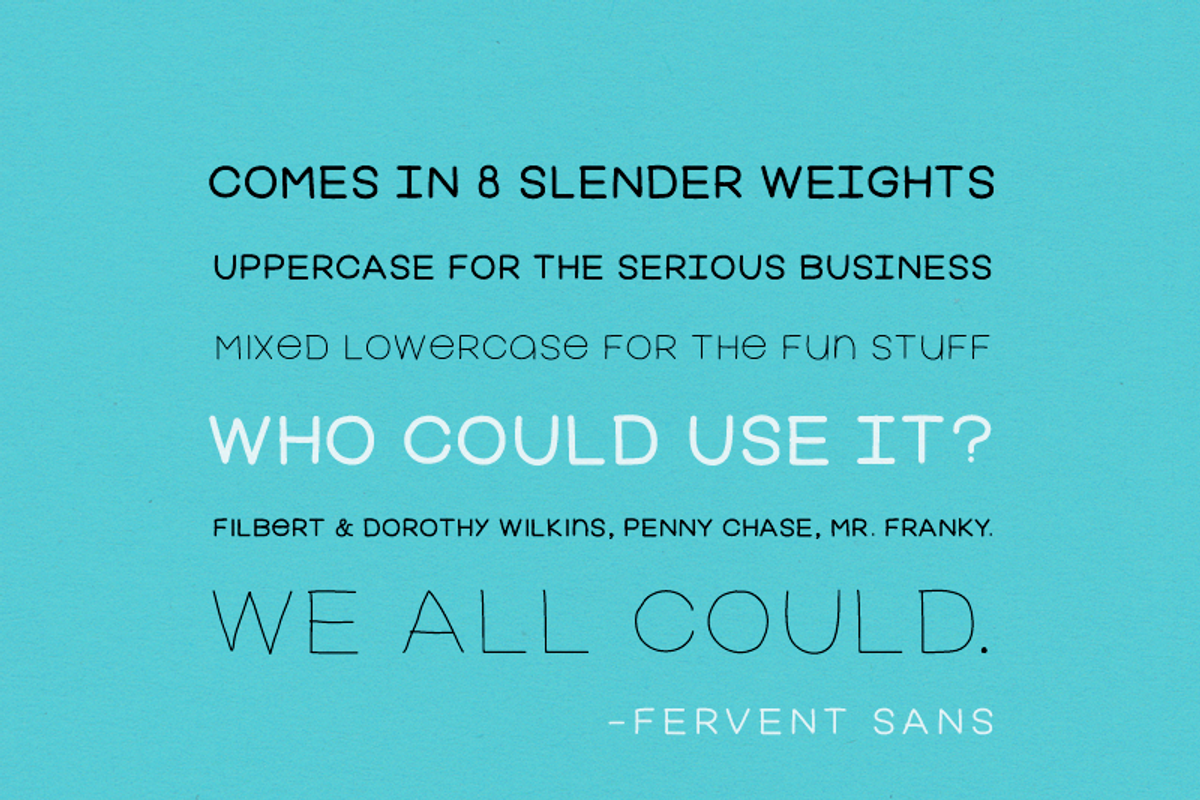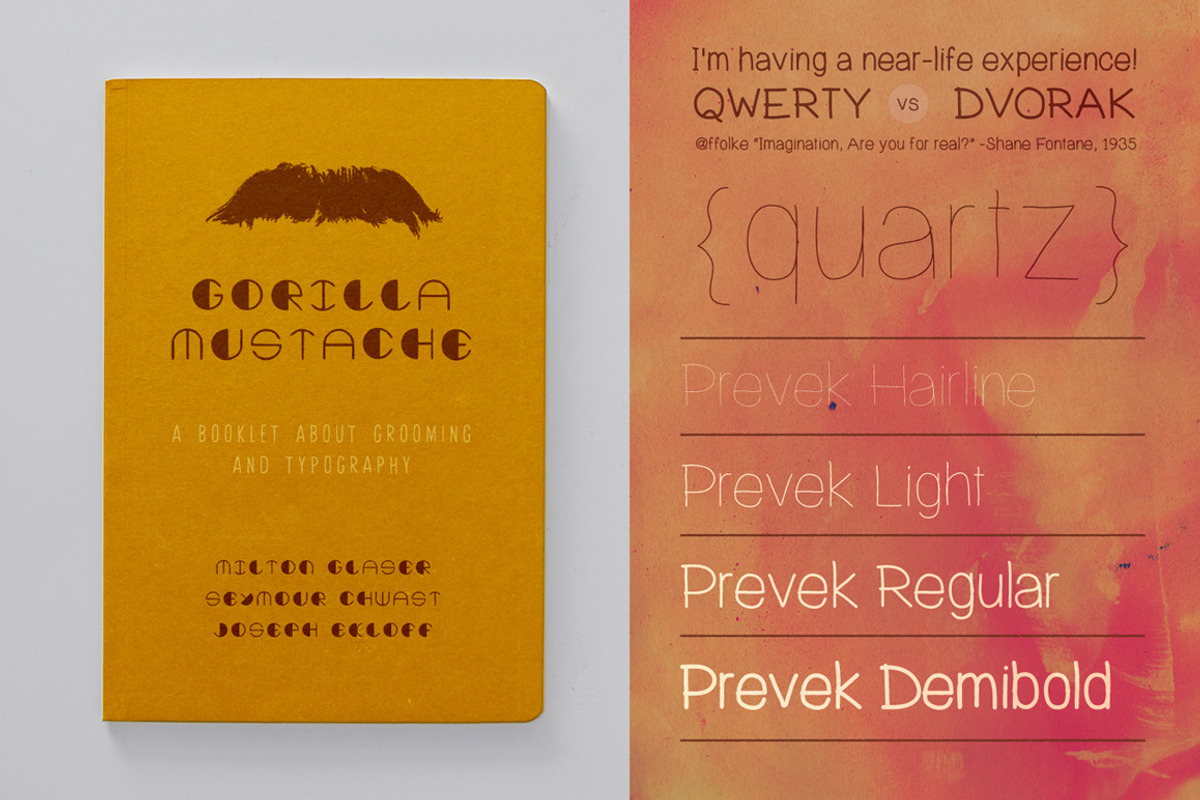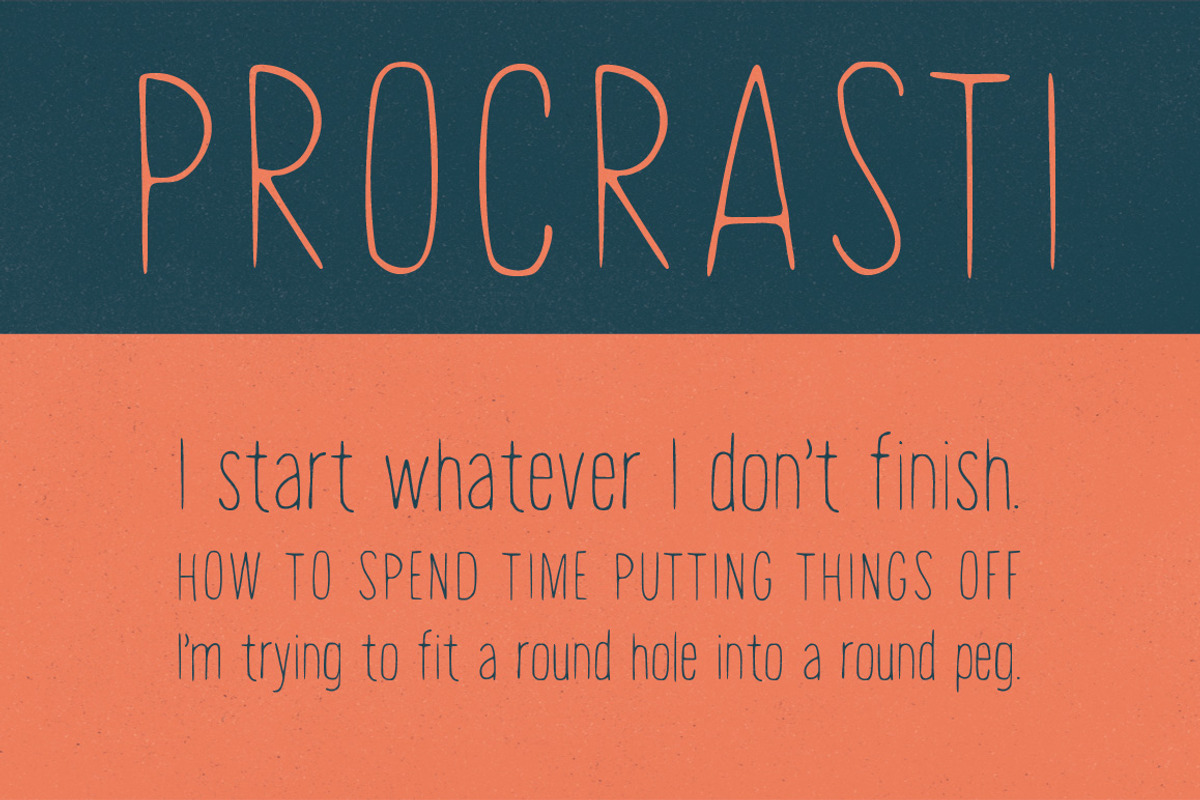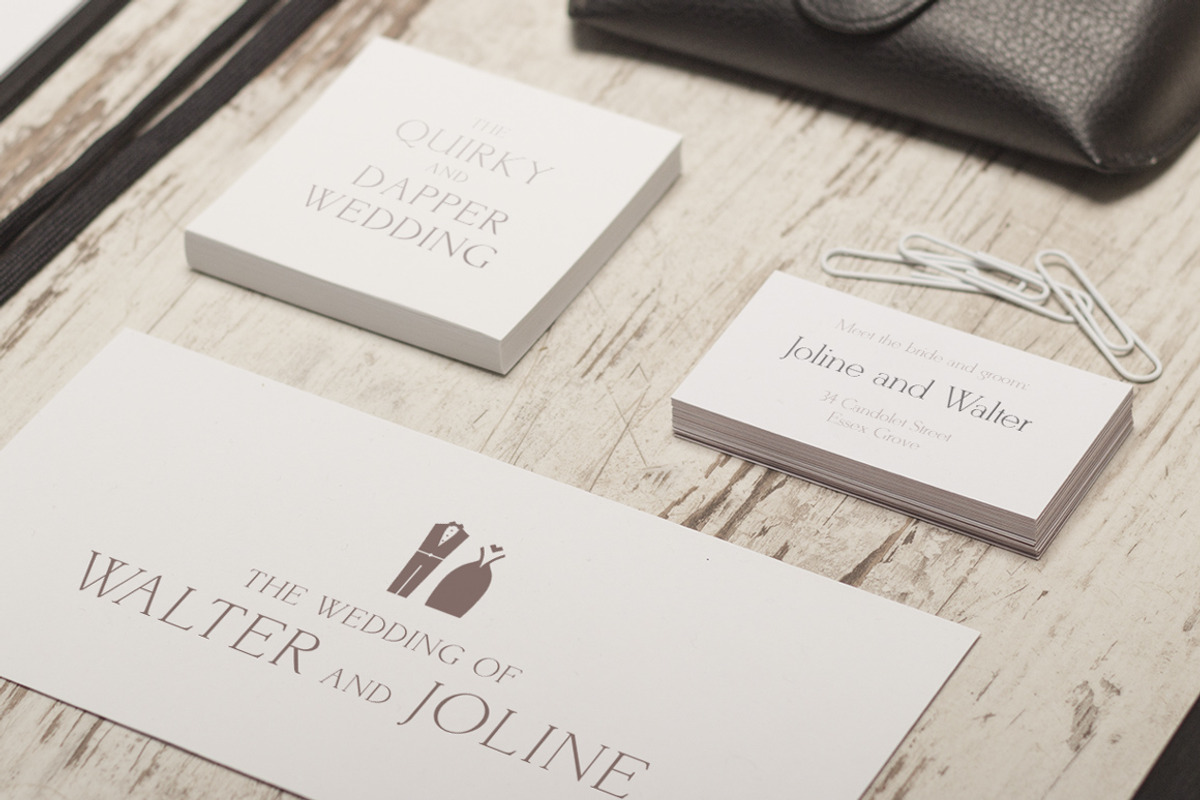
Handed Font Pack: 6 typefaces
Handed Font Pack: 6 typefaces by Ekloff is a font selected for branding, posters, packaging, typography.
- The Handed Font megapack includes 6 typefaces with an expressive feel, and some have a handful of weights.
- It accentuates the beauty of making things by hand, as well as the personal effort put into your work down to the last detail.
- Fervent Sans - Nod to metropolitan signs, with oversized lowercase to keep it honest and fun.
Why Handed Font Pack: 6 typefaces is worth a look
Handed Font Pack: 6 typefaces by Ekloff fits naturally into Branding, posters, packaging, typography.